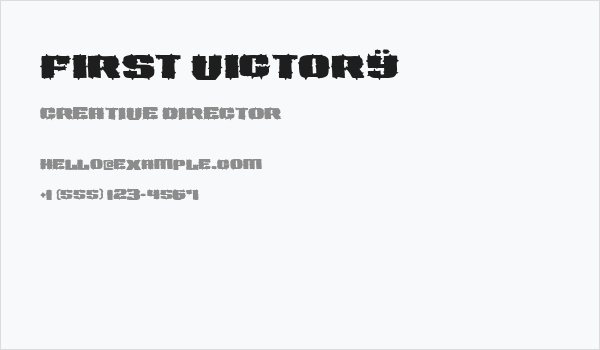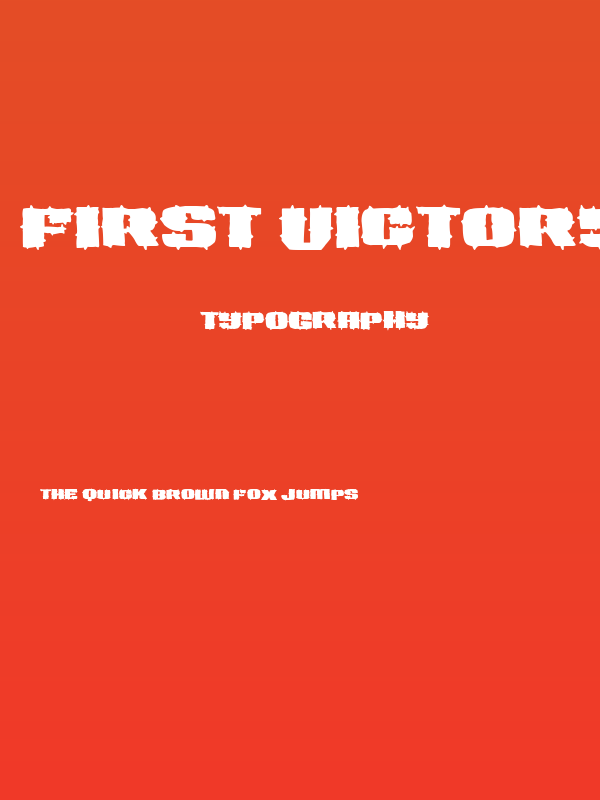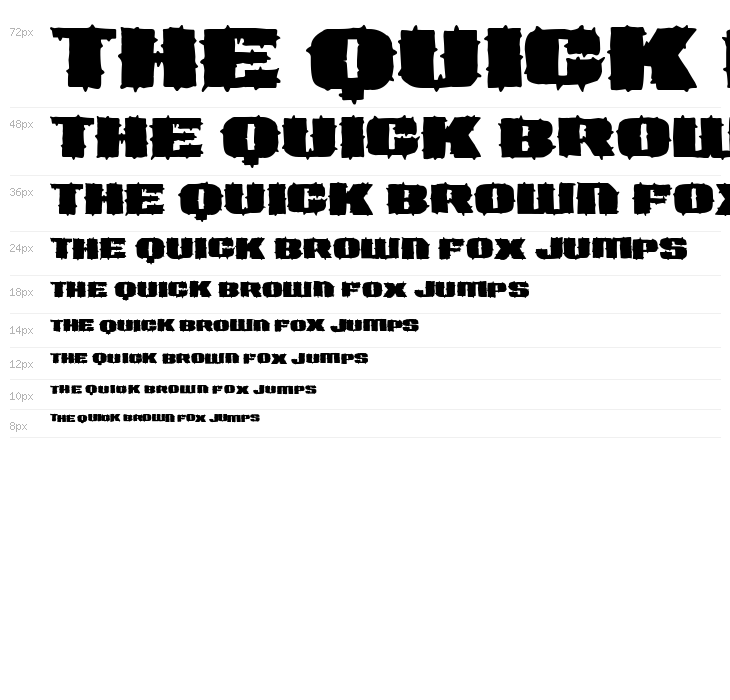
First Victory Font
First Victory Description
A bold, distressed display font with heavy, blocky letterforms and irregular, jagged edges, giving a rough, grunge-like appearance. The characters are uppercase with consistent height and width, and the font includes numbers and common punctuation.
| Overall Style | Grunge, Decorative, Modern |
| Use Case | Headlines, Posters, Logos |
| Proposed Projects | Posters, album covers, event flyers, video game titles, horror or action-themed graphics. |